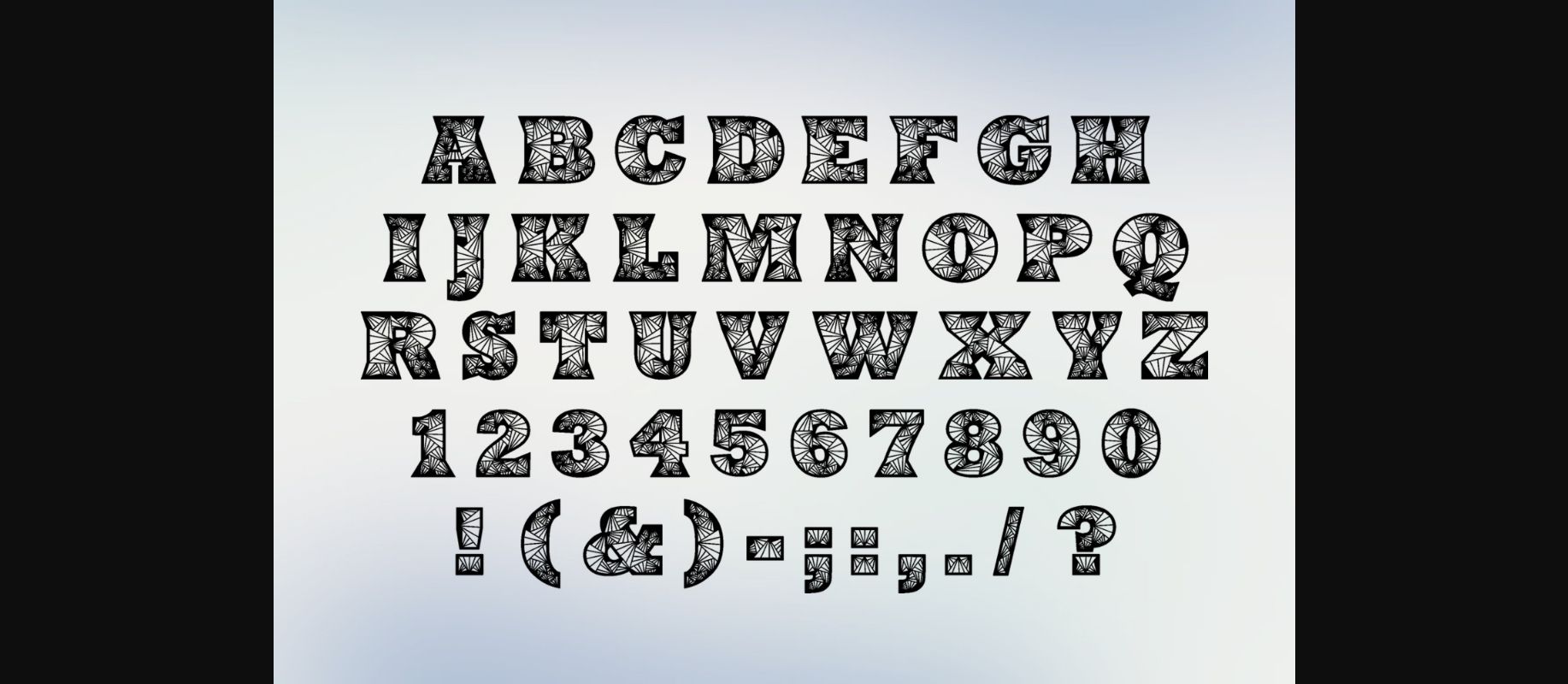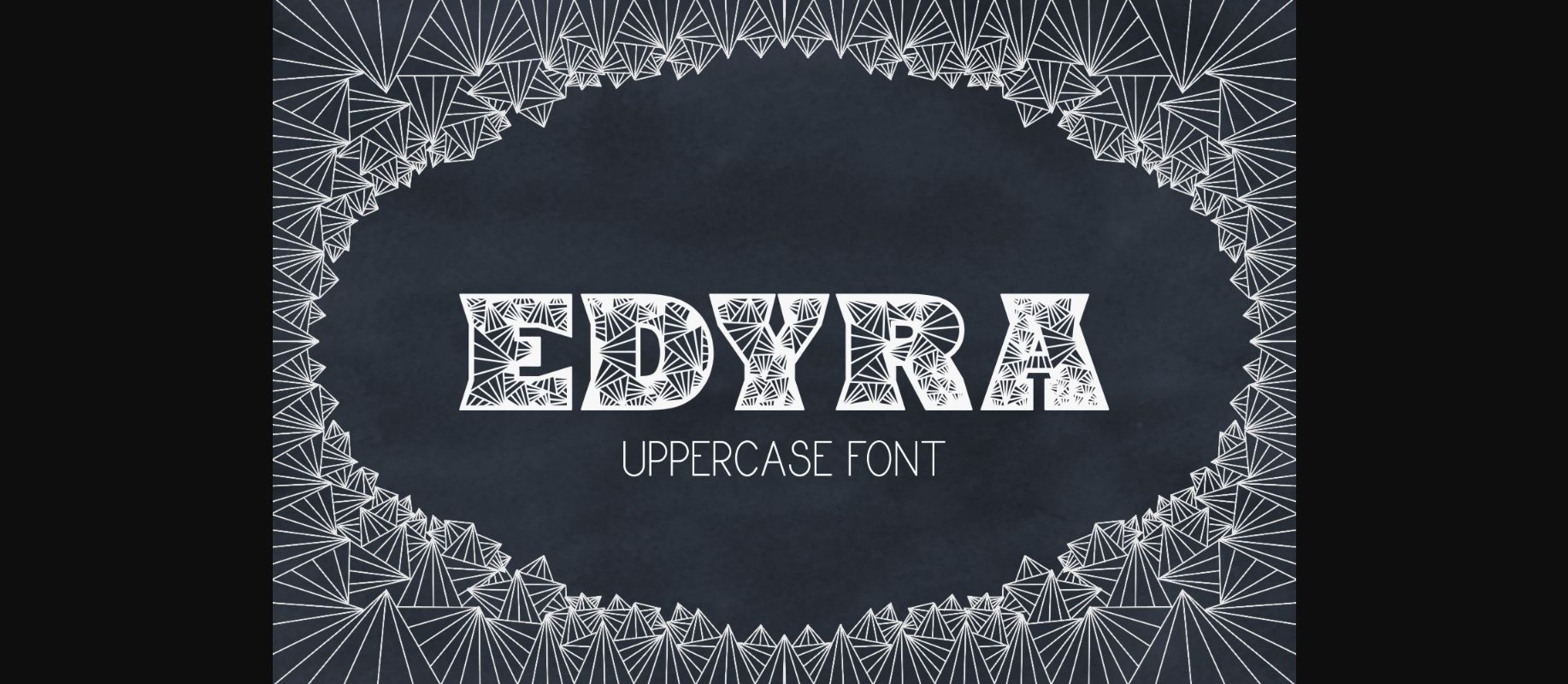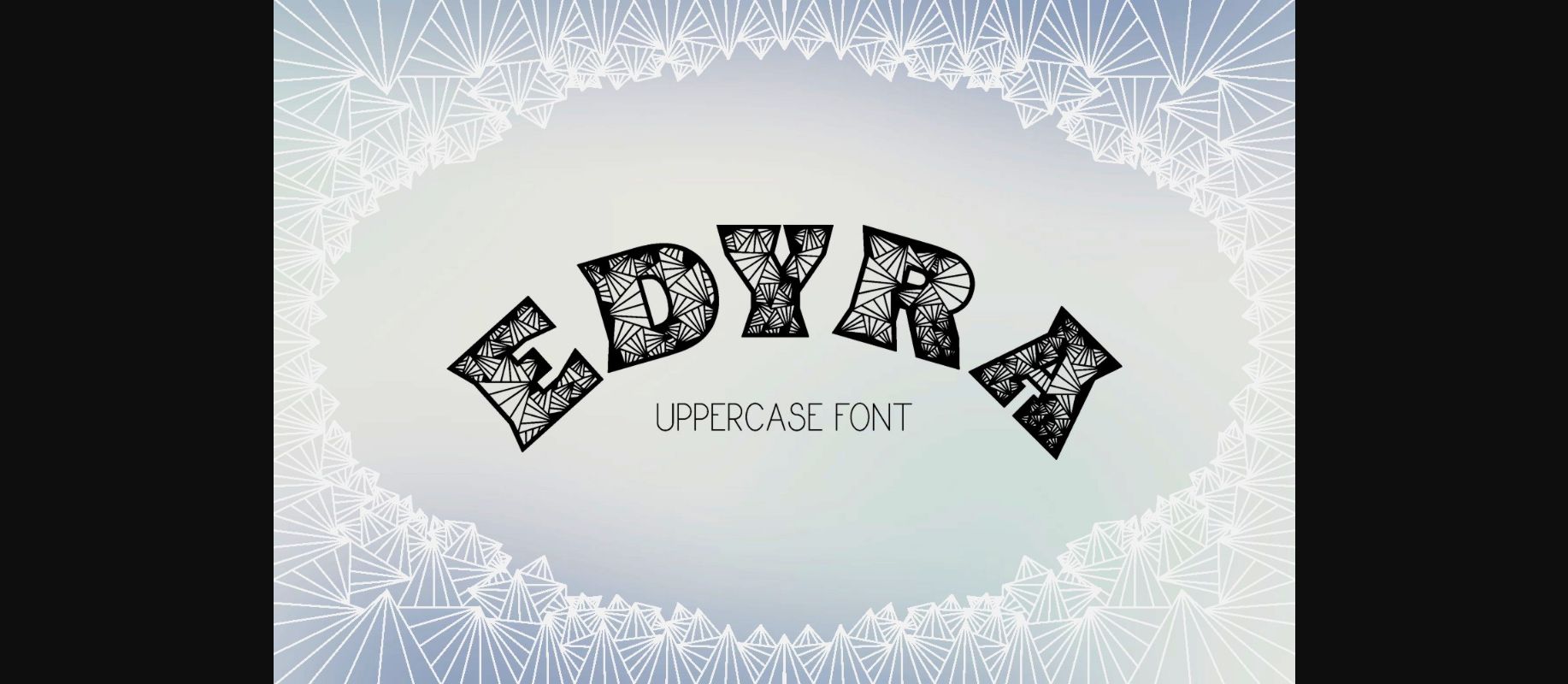
Edyra Font
About Edyra Font
Edyra is a beautifully drawn font set, complete with remarkable embellishment and detail. Edyra is a bold display option for the most fearless of designers.
Edyra is a dynamic and fun font, and is an essential in any diverse font collection.